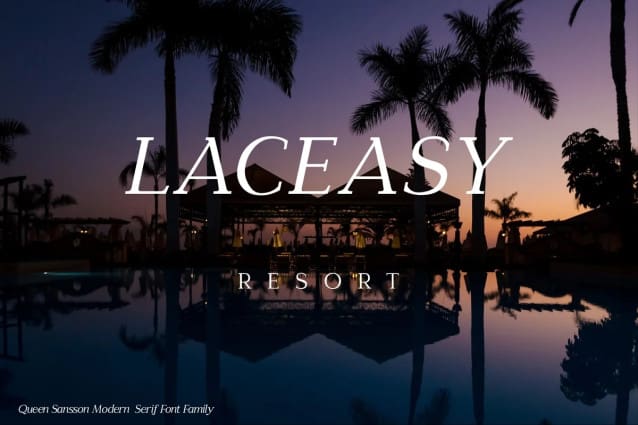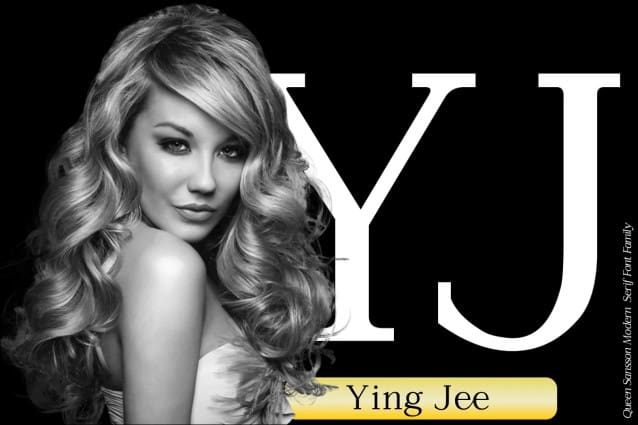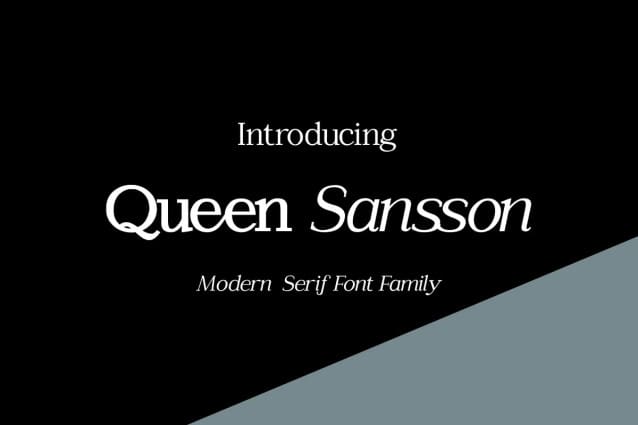
Queen Sansson Font
Queen Sansson Font – a Serif font families with modern and nostalgic. This font is both modern and nostalgic and works great for logos, mastheads and pull quotes.